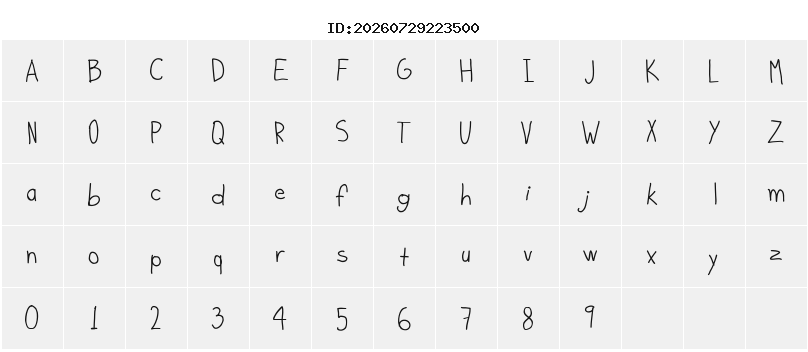
• Font Name: Kiddo-soup
• Designer: Otto Lerma
About Kiddo-soup.ttf
Kiddo-soup.ttf is a modern, elegant sans-serif font designed for ultimate readability and visual harmony. Perfect for branding, headlines, web design, and print materials.